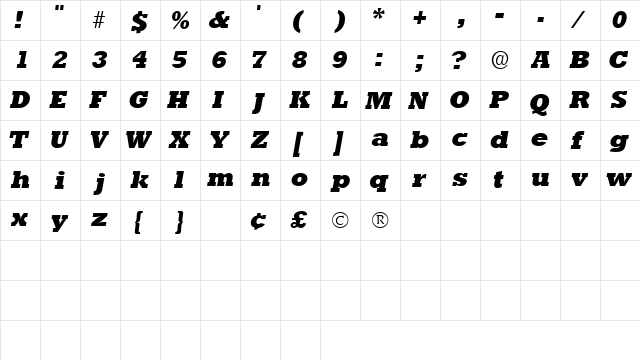
DolmenSSK Italic
Design Context for DolmenSSK Typeface
DolmenSSK offers clean, dependable letterforms without strong stylistic allegiance, making it a practical choice for designers who need flexibility. Its italic angle brings a sense of urgency and motion to the letterforms.
Pro Tip: Try DolmenSSK for annotation and caption copy alongside an upright companion — the contrast in angle creates a dynamic but ordered typographic system.